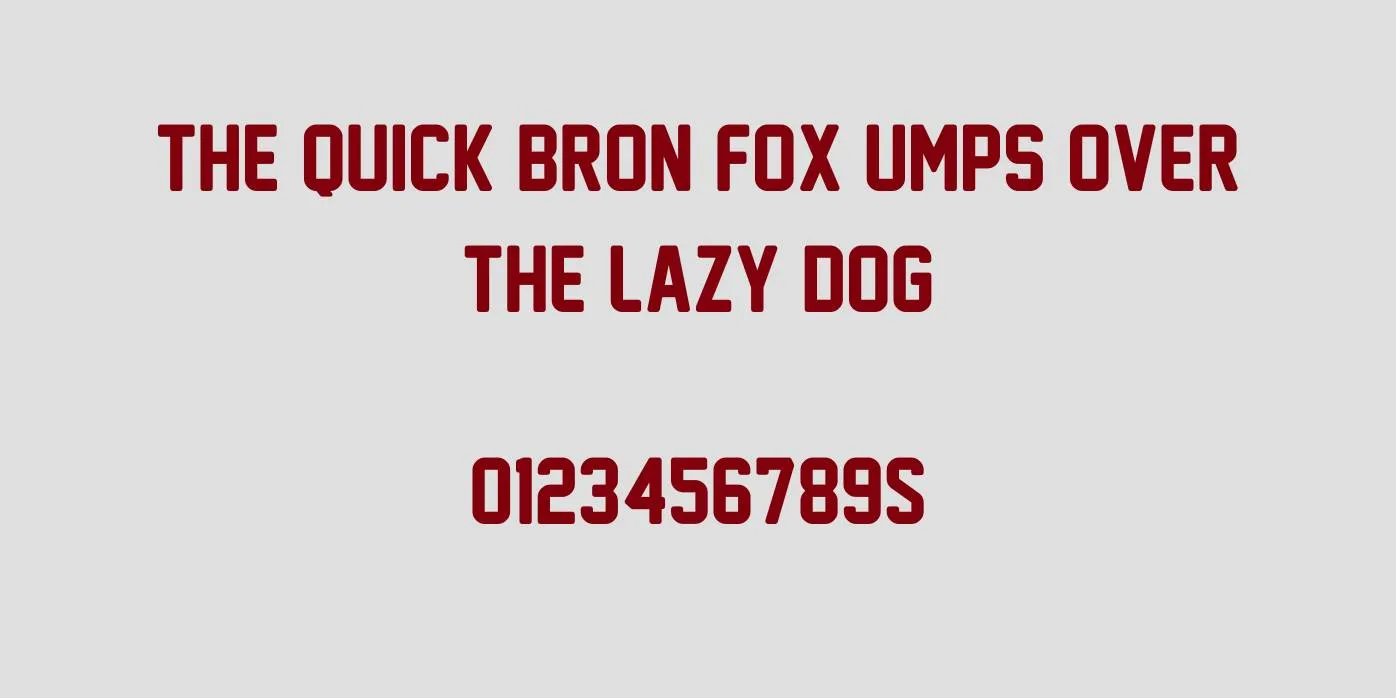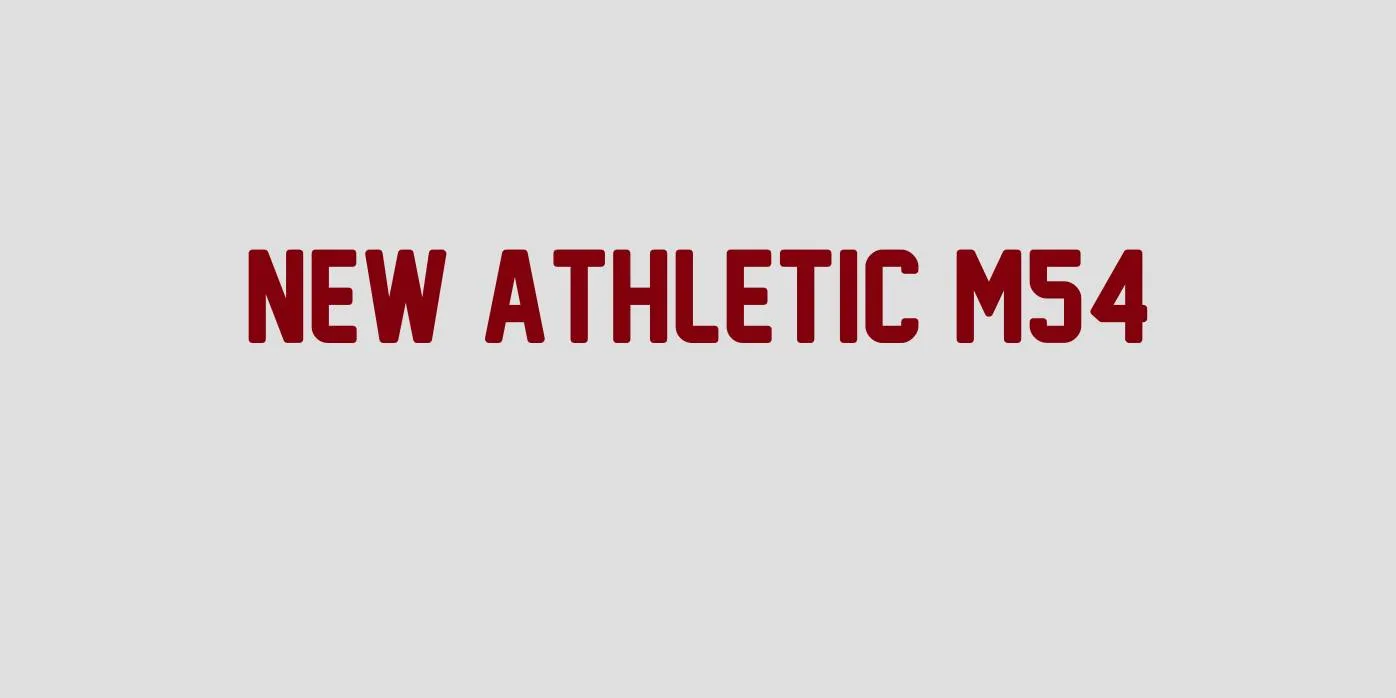
New Athletic M54 Font
Justme54s designed this fancy texture. New Athletic M54 Font is highly readable, and attractive texture. The family of this font contains only one style. The online generator tool of this texture is also helpful to generate this font.
Moreover, This text characters support special letters, numbers, punctuation, uppercase, and lowercase letters.